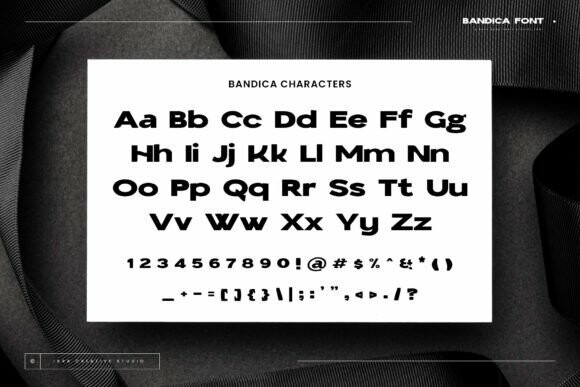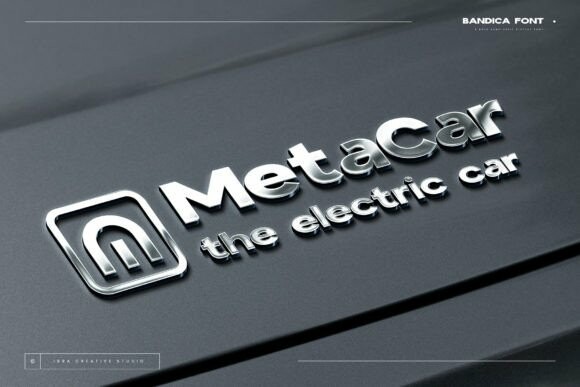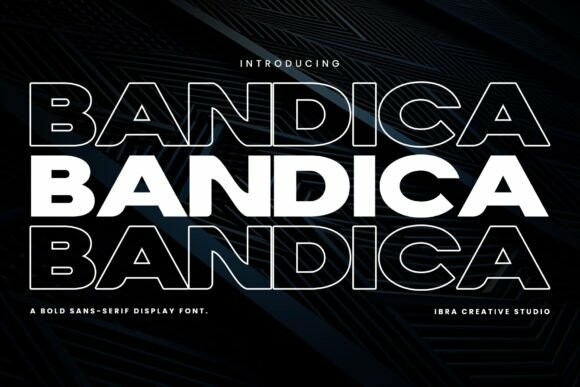
Bandica Font
Bandica Font is a striking sans-serif display font that boldly commands attention with its modern and assertive aesthetic. Characterized by clean lines and a lack of serifs, this typeface exudes confidence and contemporary style. The bold weight of Bandica amplifies its impact, making it ideal for headlines, banners, and other prominent design elements. The letterforms are meticulously crafted, ensuring a balance between readability and visual flair.